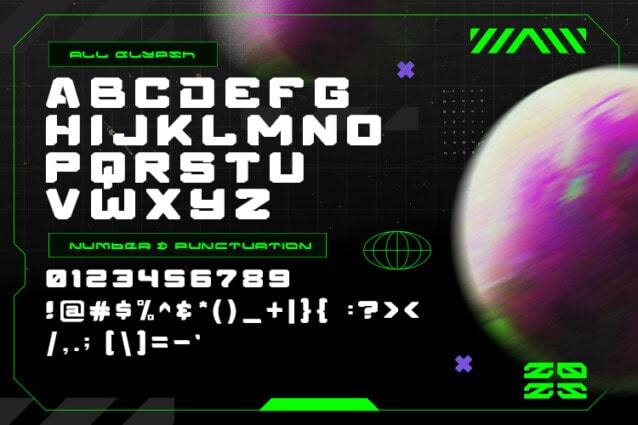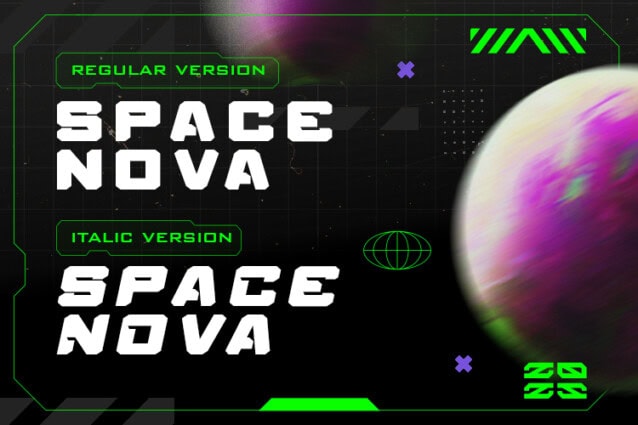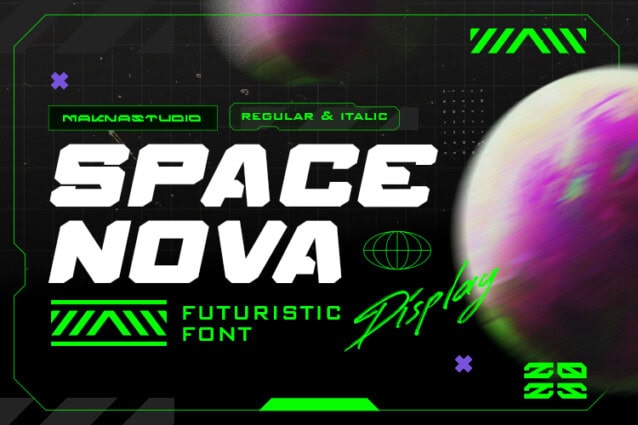
Space Nova Font
Space Nova Font is A sleek and futuristic font designed for modern projects, SPACE NOVA combines sharp edges and clean lines to bring a cosmic and high-tech aesthetic to your designs. Perfect for sci-fi themes, tech branding, and visionary concepts.